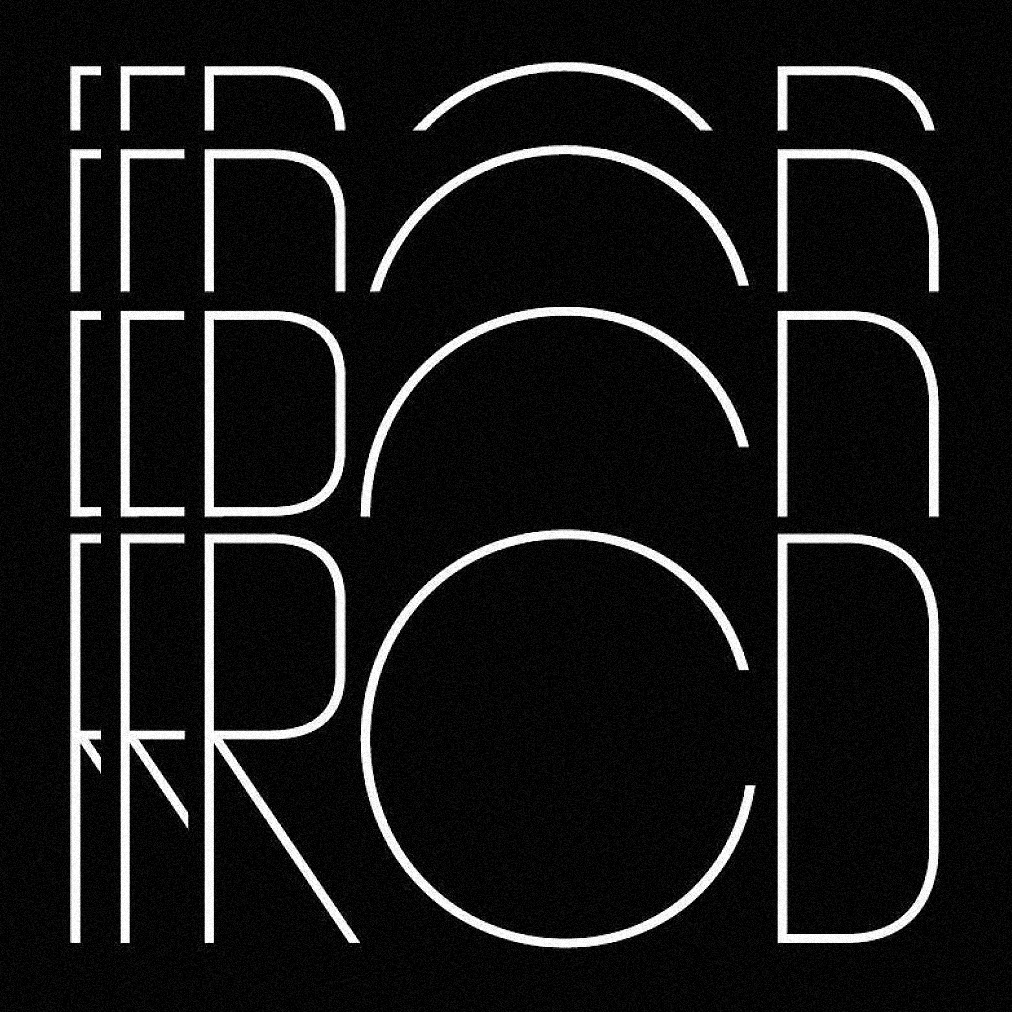
Rencontres Cinématographiques is a conference on the state of the modern film industry, which took place in October 2017, in Dijon, France. The festival’s identity, created by the La Direction studio, is set in Giorgio Sans from Commercial Type and Beretta Sans from 205TF.
Giorgio Sans was designed in 2008 at the request of Christopher Martinez, art director of the New York Times’ style magazine, T. The typeface combines French enamel signs and generic American sign lettering from the early 20th century. It includes eight weights, each with a corresponding italic.